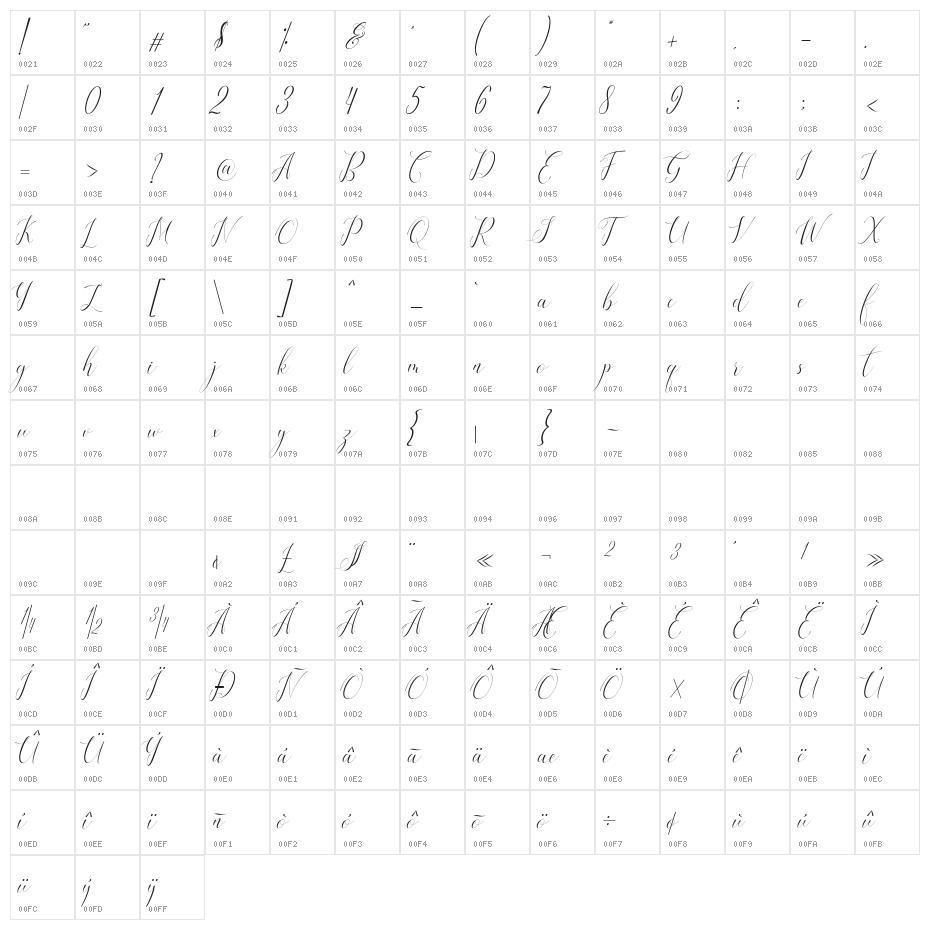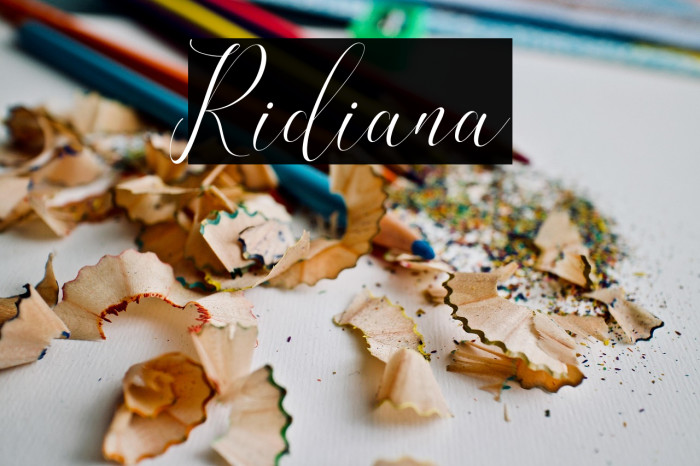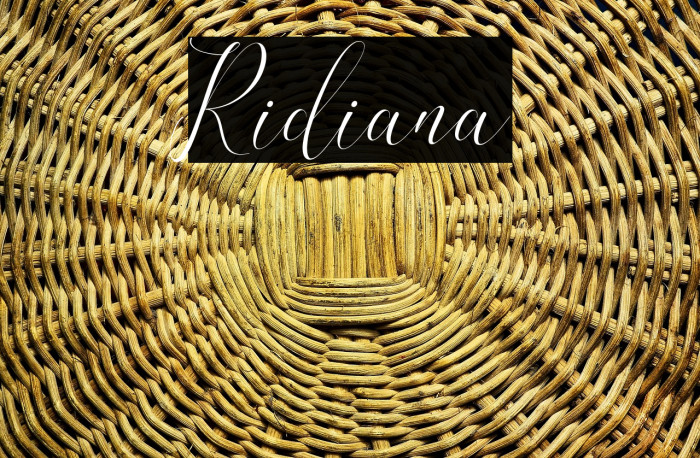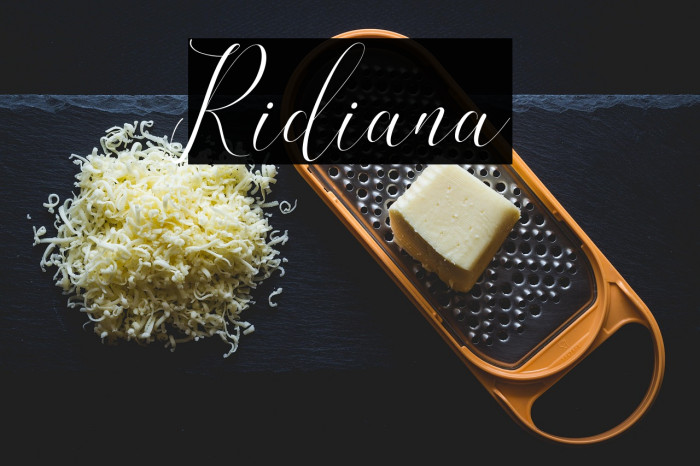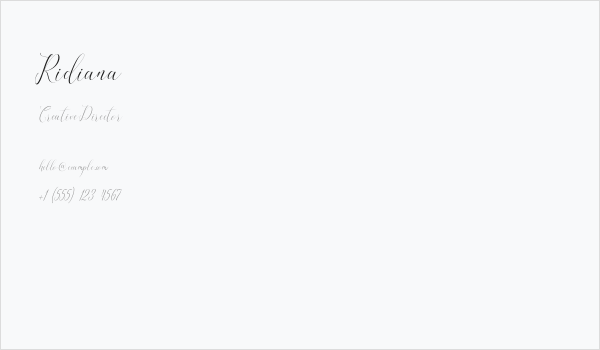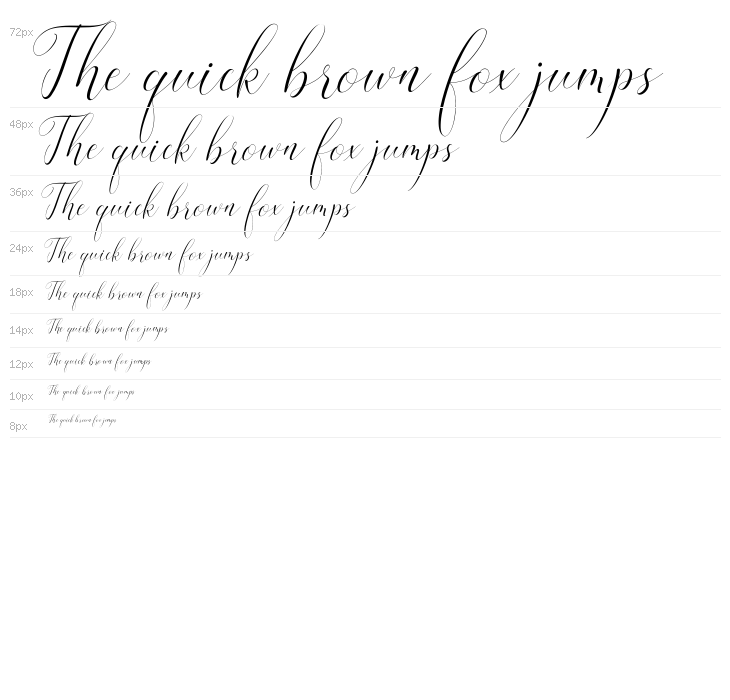
Ridiana Font
Ridiana Description
This elegant script font features flowing, interconnected letters that exude a sense of sophistication and grace. The uppercase characters are tall and slender, with delicate loops and flourishes that add a touch of luxury. The lowercase letters maintain a consistent style, with smooth curves and a slight slant, enhancing the font's fluidity. The numerals are stylish and maintain the overall aesthetic, while the special characters are thoughtfully designed to complement the letterforms. This font is perfect for projects that require a touch of elegance and refinement.
| Proposed Projects | Ideal for wedding invitations, luxury branding, elegant stationery, and high-end product packaging. |